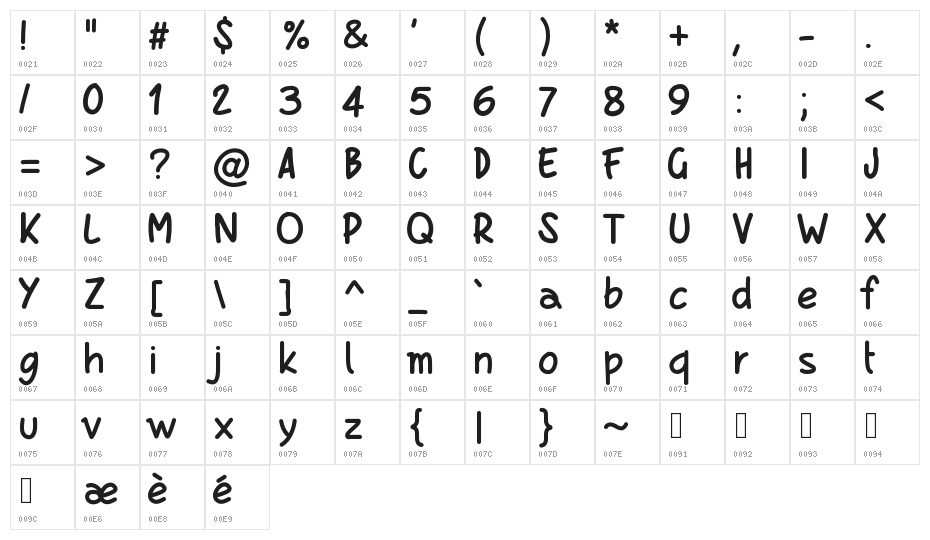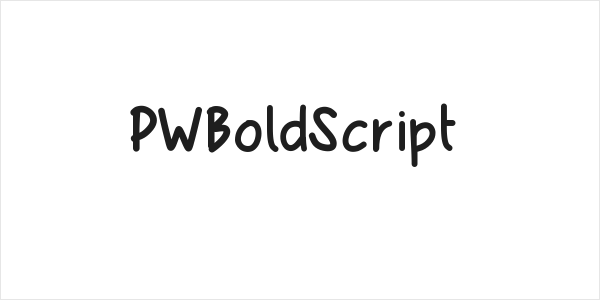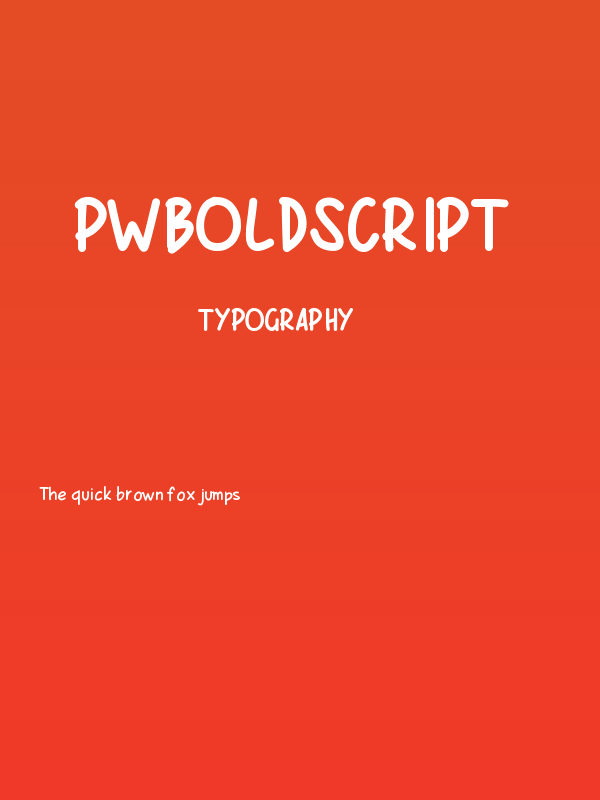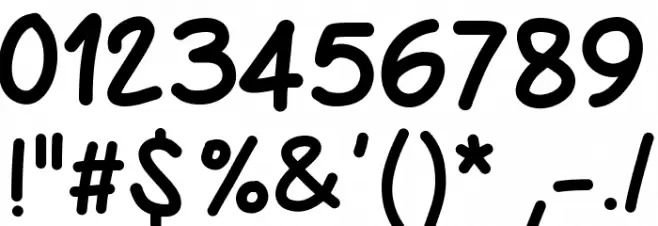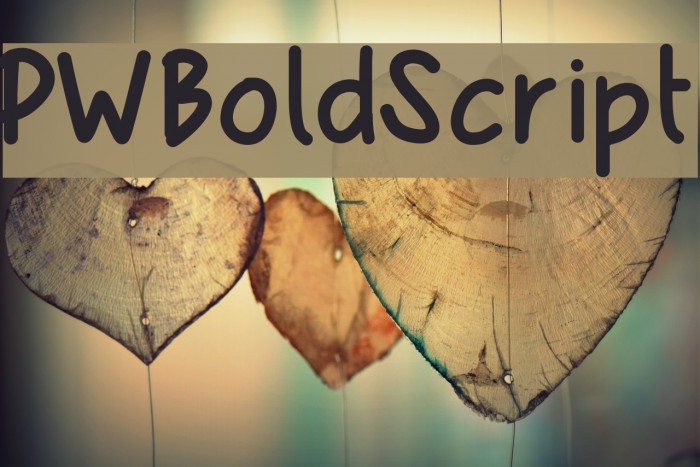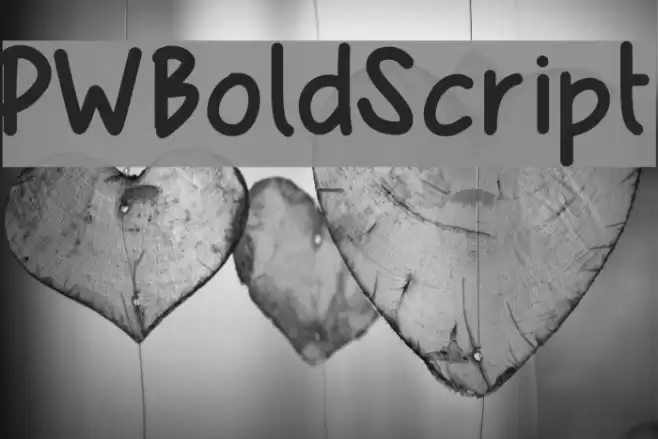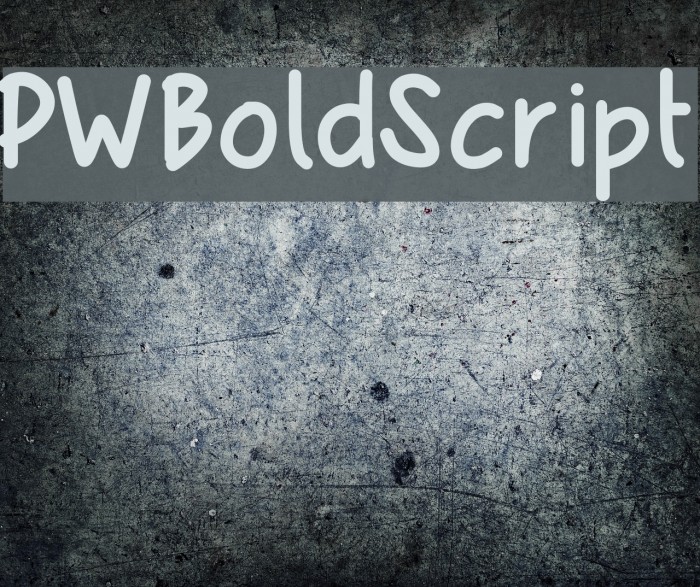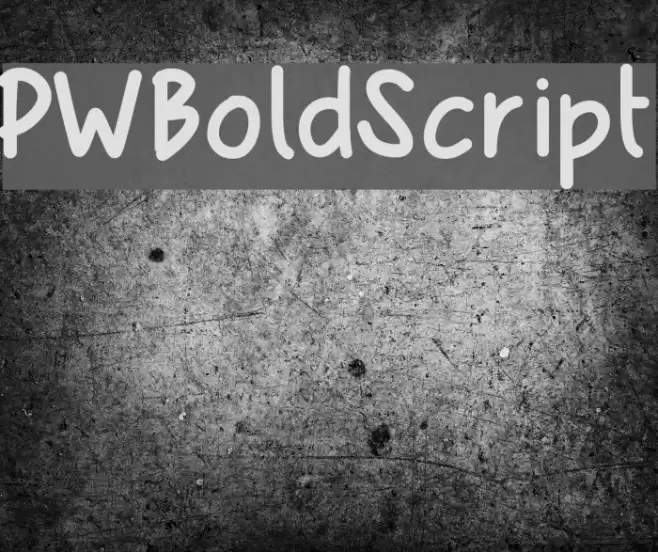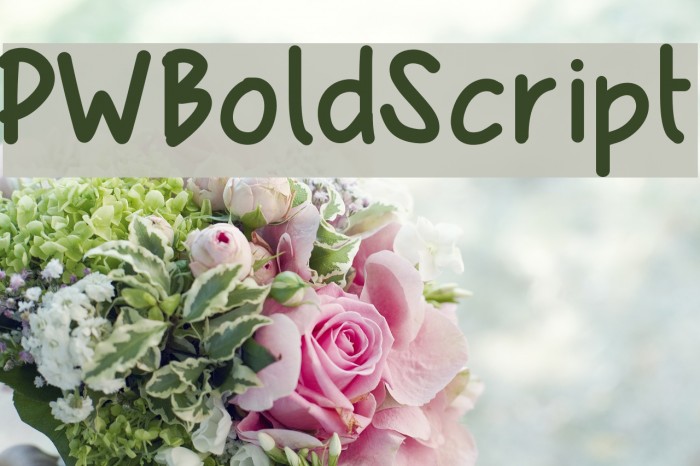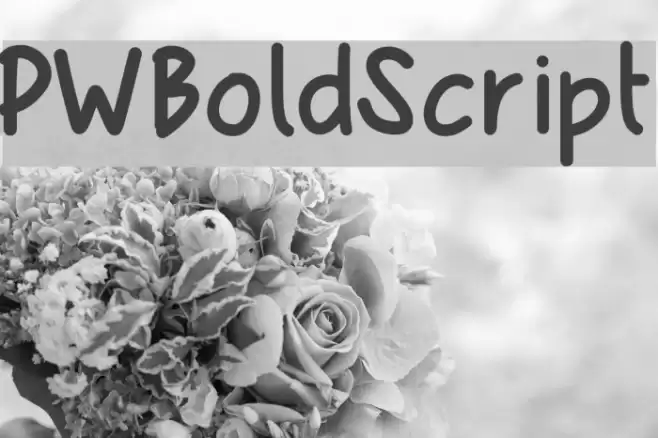
PWBoldScript Font
PWBoldScript Description
This font features a playful and bold script style, characterized by its rounded and smooth letterforms. The uppercase and lowercase letters maintain a consistent flow, giving a handwritten appearance that is both casual and energetic. The numbers and special characters are designed to complement the overall style, ensuring readability and aesthetic appeal. The strokes are thick, providing a strong visual impact, while the curves add a touch of whimsy. This font is ideal for projects that require a friendly and approachable look.
| Overall Style | Playful |
| Use Case | Logos, Headlines, Posters |
| Proposed Projects | Perfect for greeting cards, children's books, playful branding, and social media graphics. |